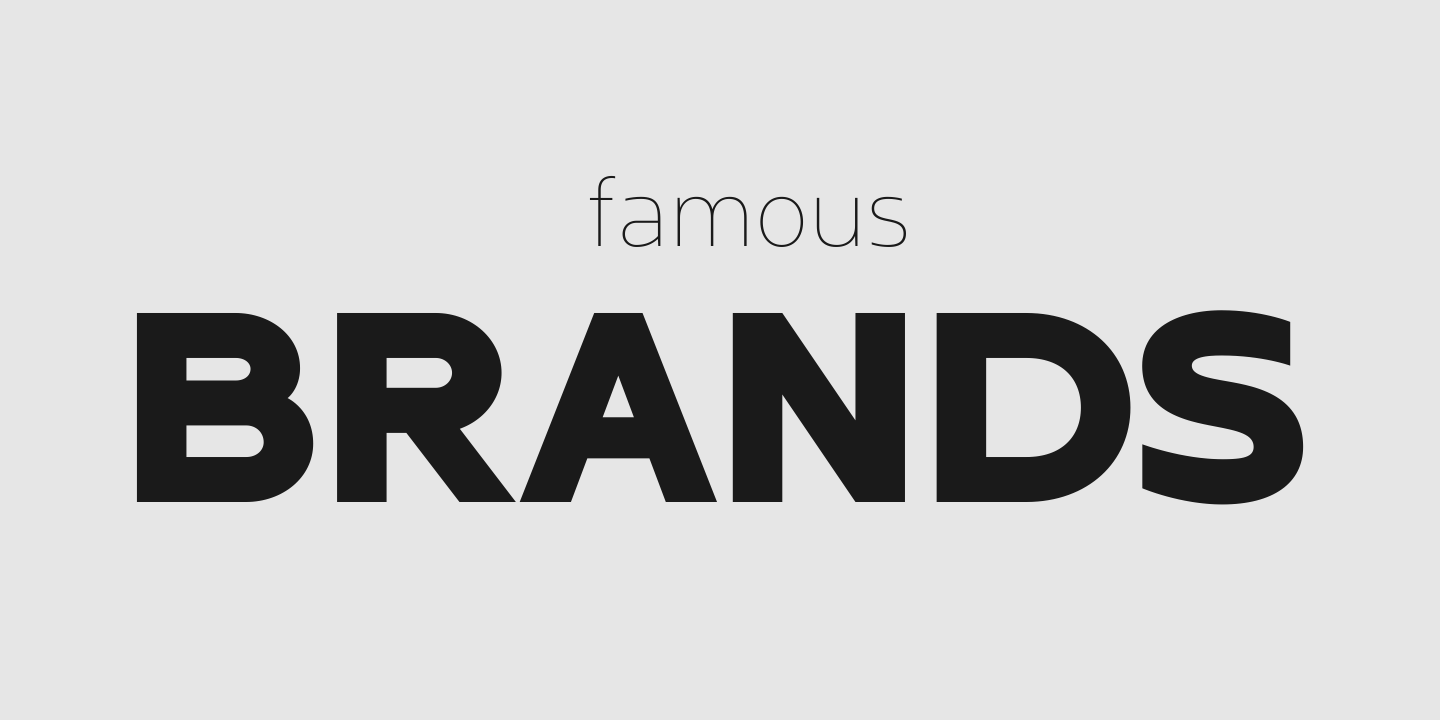
Alicante Sans font family
Alicante Sans is a contemporary font family comprising nine weights (Thin, Extra Light, Light, Book, Regular, Medium, SemiBold, Bold, and Black) and italic versions for each format. Alicante Sans is named after the beautiful Alicante, a city and municipality in the Valencian Community, Spain.
Alicante Sans is an optimal font family for a multitude of applications, including text, corporate design, communication design, graphic design, branding, packaging, publishing, and web use. Each font contains an international set of 871 characters, supporting 212 different languages. Alicante Sans is not just a typeface; it’s a toolkit for creatives. With its multitude of OpenType features and stylistic alternatives, designers are equipped with an arsenal of typographic tools to add character and distinction to their work. Furthermore, the font family has a multitude of OpenType features. The font family will take your work to the next level, whether you’re creating branding, designing a website, or setting type for a publication.
The Alicante Sans typeface supports the following Latin-based languages:
Albanian, Aragonese, Aromanian, Arpitan, Bashkir (Latin), Basque, Belarusian (Latin), Bosnian, Breton, Catalan, Colognian, Cornish, Corsican, Crimean Turkish, Crioulo (Upper Guinea), Croatian, Czech, Danish, Dutch, English, Esperanto, Estonian, Extremaduran, Faroese, Finnish, Finnish (Kven), French, Friulian, Gagauz, Galician, Gallo, German, Gheg Albanian, Hungarian, Icelandic, Inari Sami, Indonesian, Interlingua, Irish, Italian, Jèrriais (Latin), Kalaallisut, Karelian, Kashubian, Ladin, Latgalian, Latin, Latvian, Ligurian, Lithuanian, Lombard, Low German, Lower Sorbian, Lule Sami, Luxembourgish, Maltese, Manx, Middle High German, Mirandese, Neapolitan, Northern Frisian, Northern Sami, Norwegian, Norwegian Bokmål, Norwegian Nynorsk, Occitan, Old English, Old French, Old High German, Old Irish, Old Provençal, Old Welsh (Latin), Oroqen, Picard, Piedmontese, Polish, Portuguese, Romagnol, Romani (Balkan), Romanian, Romansh, Romany, Sardinian, Sassarese Sardinian, Saterland Frisian, Scots, Scottish Gaelic, Serbian (Latin), Silesian, Slovak, Slovenian, Southern Sami, Spanish, Swedish, Swiss German, Tatar (Latin), Turkish, Upper Sorbian, Venetian, Veps, Võro, Walloon, Walser, Welsh, Western Frisian